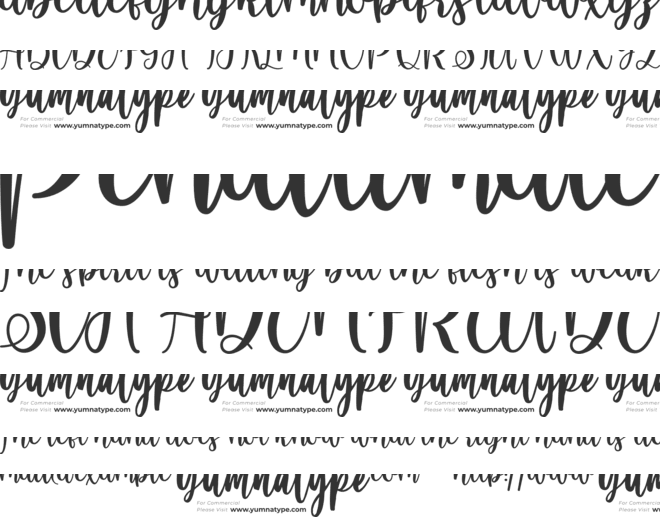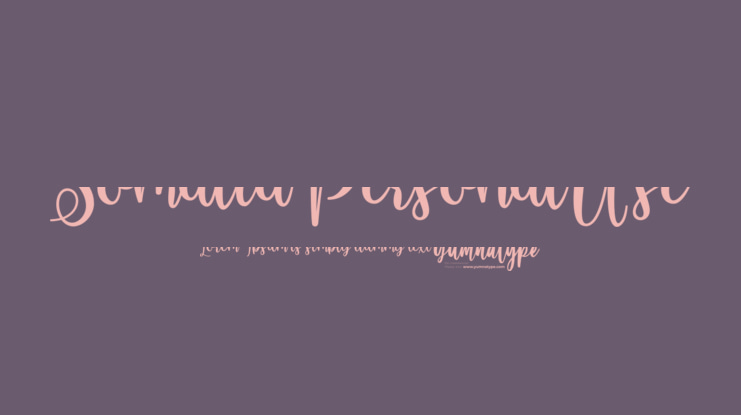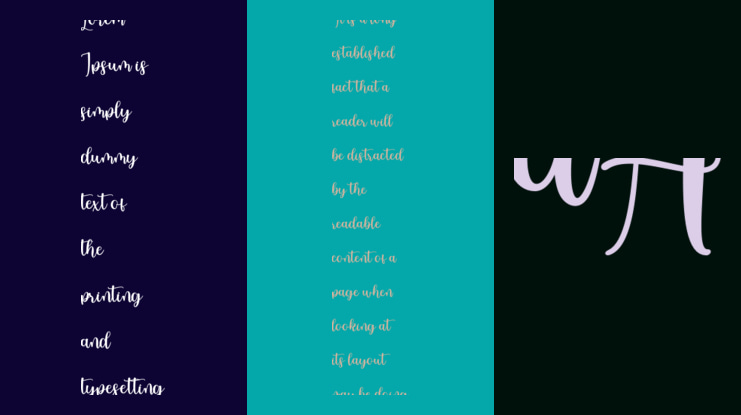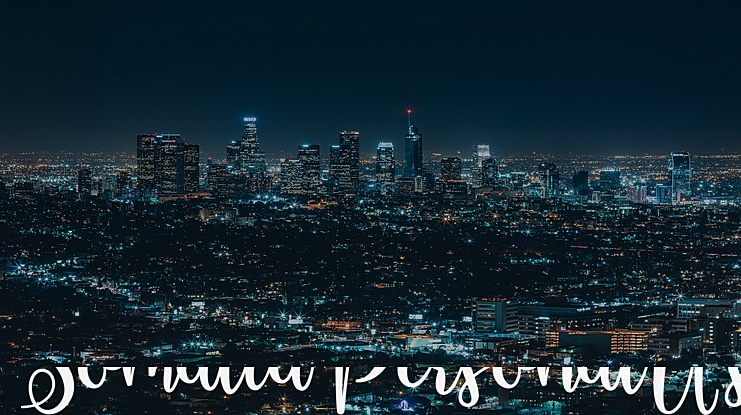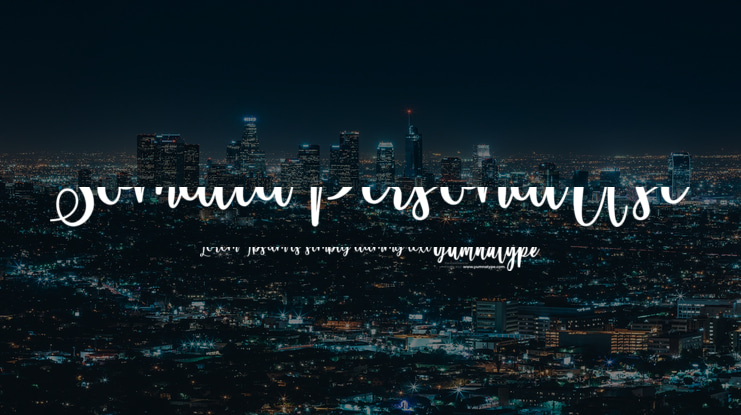
Somalia is a beautiful script font with a natural and unique design will make your project more beautiful and powerful. The font is suitable for your branding project and any design.